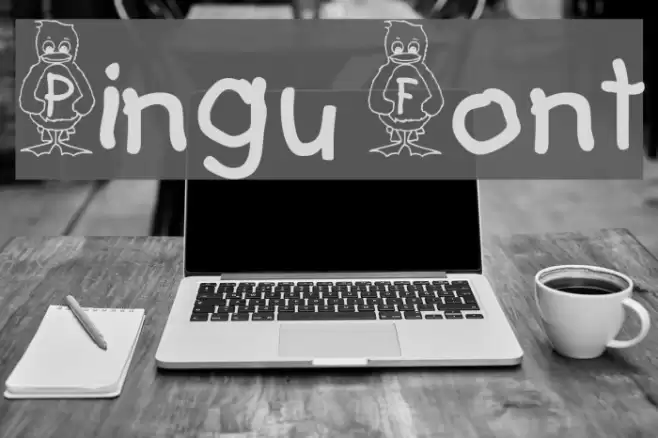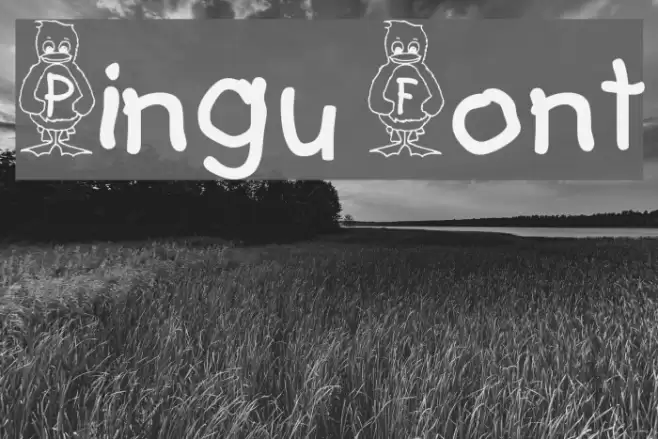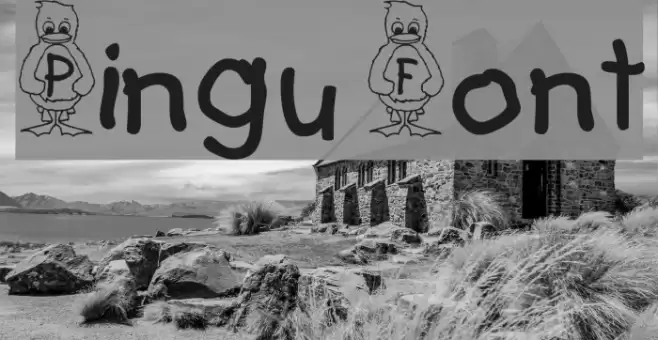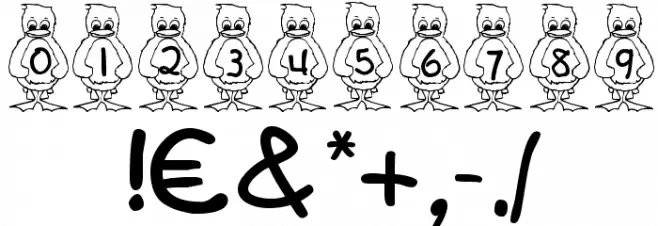
Pingu Font
Pingu Description
This playful and whimsical font features characters that are creatively integrated into penguin illustrations, giving it a unique and charming appearance. The uppercase letters are encased within penguin figures, adding a decorative and fun element to the design. The lowercase letters are bold and rounded, maintaining a consistent and friendly style. The numbers also follow the penguin theme, making this font particularly appealing for children's projects or playful branding. The special characters are bold and slightly irregular, complementing the overall quirky aesthetic.
A whimsical font with characters integrated into penguin illustrations, perfect for playful designs from Uncategorized fonts.
- Proposed Projects: Ideal for children's books, playful branding, educational materials, and themed party invitations.
- Overall Style: Playful, Whimsical
- Use Case: Headlines, Logos, Children's materials